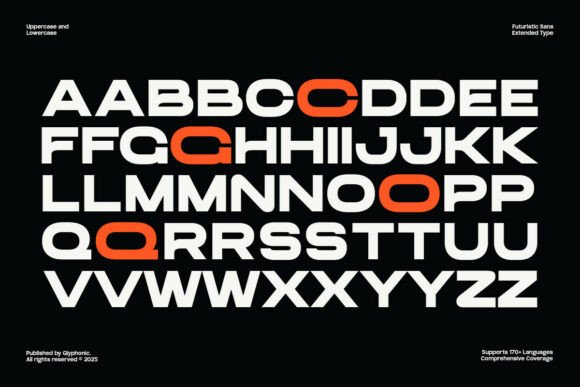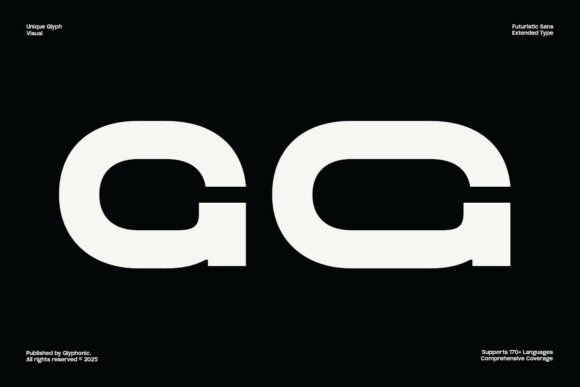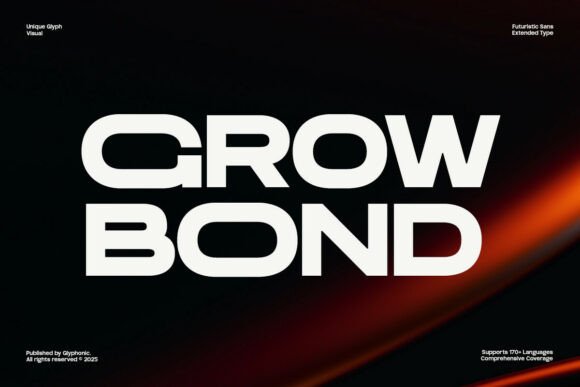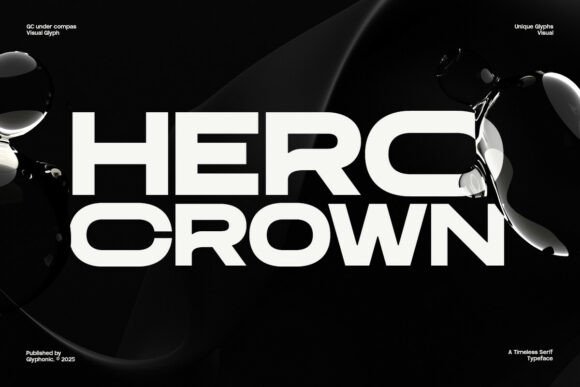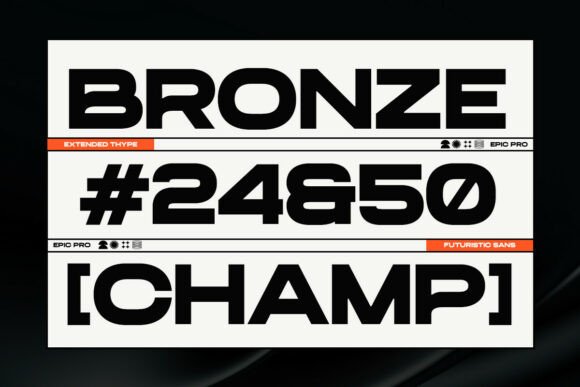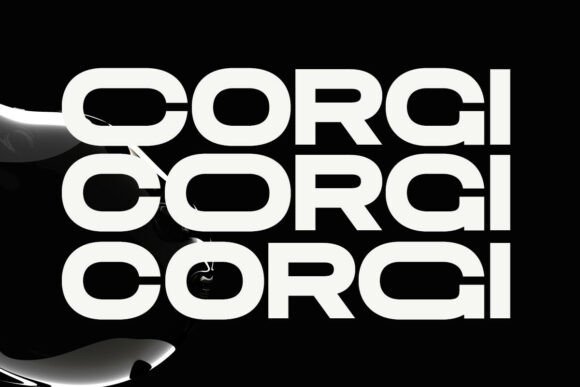
Unlocking the Power of Gc Epicpro Font: A Designer’s Dream Come True
I’ll never forget the design project that pushed me to the edge – a futuristic sci-fi visual that demanded a font as bold as the story itself. The struggle was real; I scoured the internet for the perfect typeface, only to come up empty-handed. That was until I stumbled upon the Gc Epicpro Font, a game-changing extended sans-serif display font that fused bold proportions with crisp, modern design.
As a designer, I can confidently say that Gc Epicpro Font has become my go-to for projects that demand impact and clarity. Here’s what I love about it:
- ✨ **Confidence-inspiring letterforms**: Wide and bold, with sharp edges that scream modernity.
- ✅ **Multilingual support**: Perfect for global brands or projects with an international audience.
- 💻 **Full PUA encoding**: No need for extra design software to access special glyphs – it’s a creative’s dream!
- 🔍 **Dynamic ligatures and stylistic alternates**: Endless options for customizing your text.
Of course, no font is perfect. A few quirks to keep in mind:
- 🤔 **Limited use in body text**: This font shines in headlines and titles, but may not be the best choice for lengthy paragraphs.
- ⚠️ **Requires a bit of experimentation**: To get the most out of its OpenType features, be prepared to dig in and play around.
The Story Behind Gc Epicpro Font: A Glimpse into Its Design Inspiration
While the true story behind Gc Epicpro Font’s creation remains a mystery, it’s easy to imagine a team of forward-thinking designers coming together to craft a font that embodies the spirit of innovation. Picture a group of creatives fueled by late-night brainstorming sessions, pouring over sketches and digital renderings until the perfect blend of form and function emerged.
| Author | Glyphonic |
| What makes Gc Epicpro Font ideal for tech branding? | Its futuristic design, combined with clear readability, makes it perfect for tech companies looking to make a bold statement. |
| Can I use Gc Epicpro Font for body text? | While possible, Gc Epicpro Font truly shines in headlines and titles. For body text, consider a complementary font for better readability. |
| Is Gc Epicpro Font suitable for sports logos? | Absolutely! Its bold, energetic aesthetic makes it a great fit for sports branding and editorial layouts. |
| Does Gc Epicpro Font support non-English languages? | Yes, thanks to its multilingual support, making it a versatile choice for global projects. |
In conclusion, Gc Epicpro Font is more than just a typeface – it’s a design powerhouse that can elevate your projects to new heights. With its cutting-edge style, versatility, and ease of use, it’s an excellent addition to any designer’s toolkit.